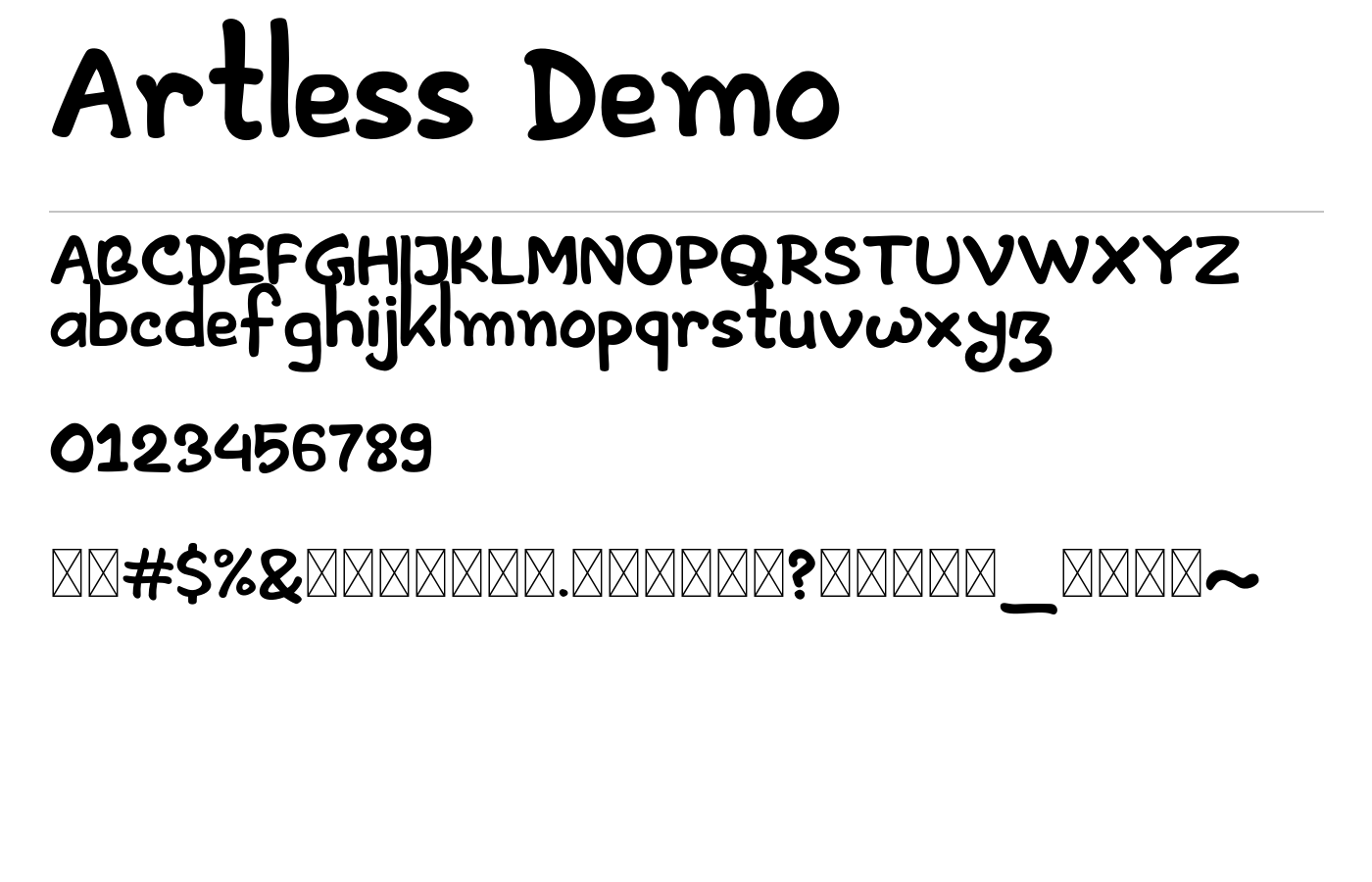
Artless Demo is a playful and informal handwritten sans serif font featuring rounded, slightly irregular letterforms that convey a friendly and approachable tone. Its medium weight and casual style make it ideal for children's books, casual branding, or creative projects that benefit from a lively and personal touch. This font works best in headlines, logos, or any design seeking a warm, fun, and down-to-earth personality.
Artless Demo Font
About Artless Demo Font
| Font family | Artless Demo Font |
| Designer | Shahadat Rahman (Shemul) |